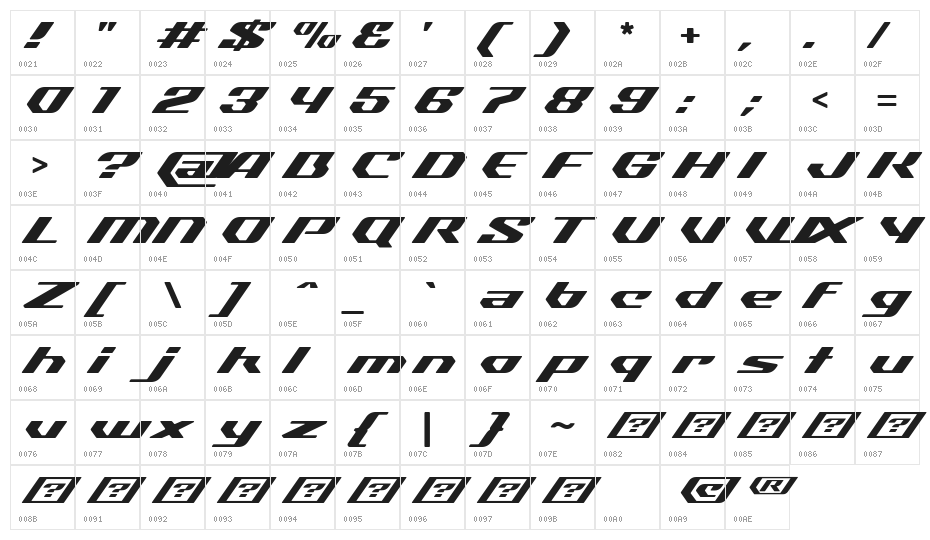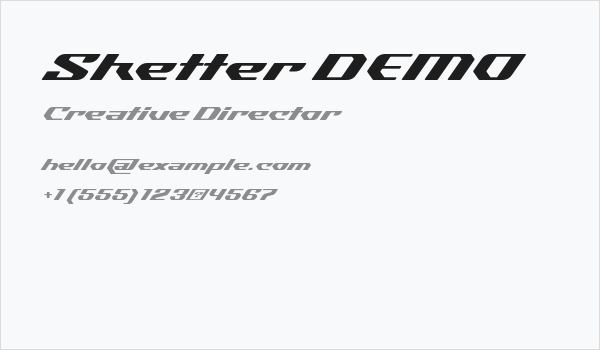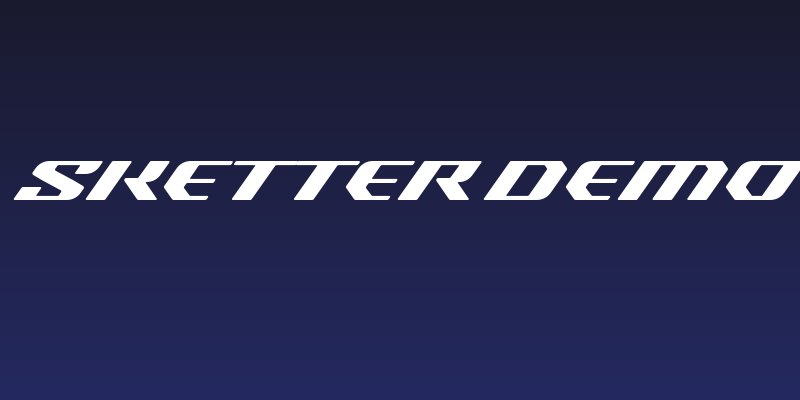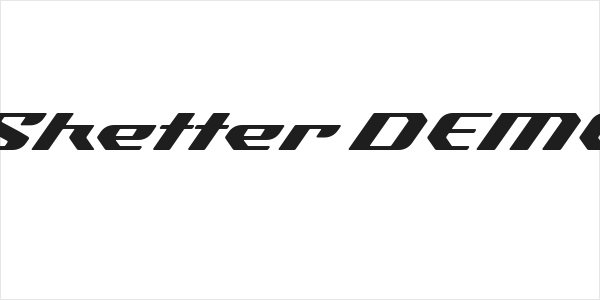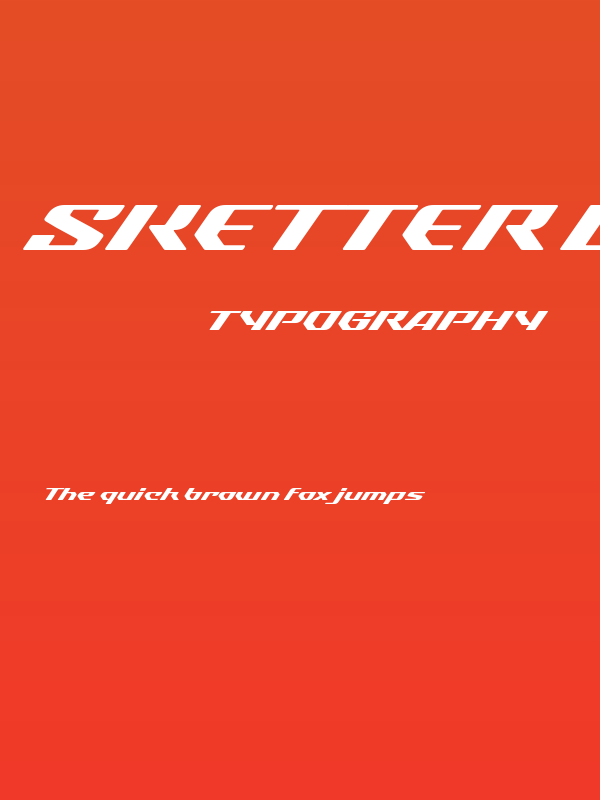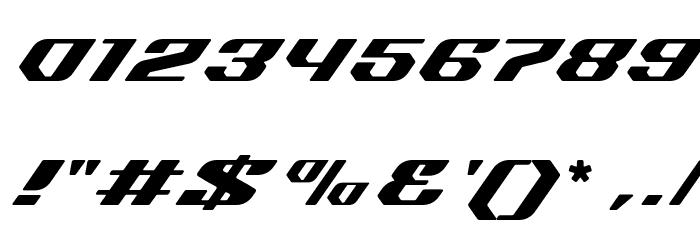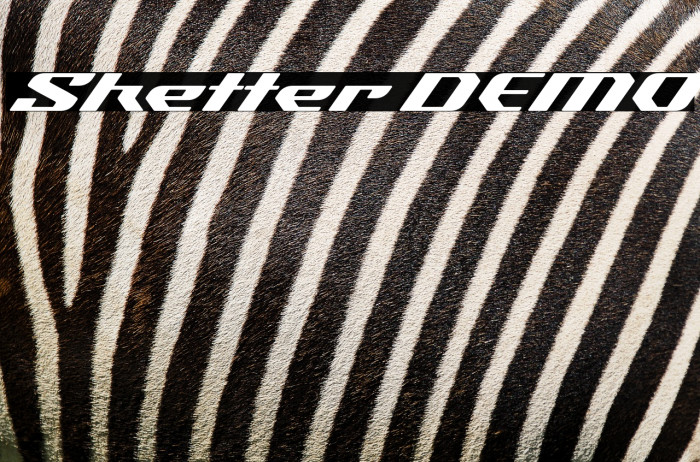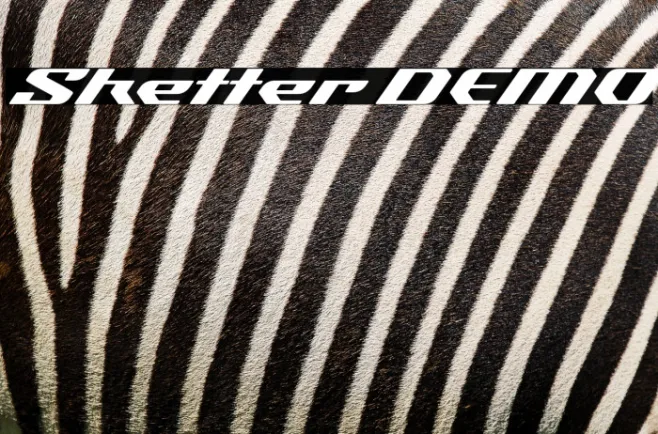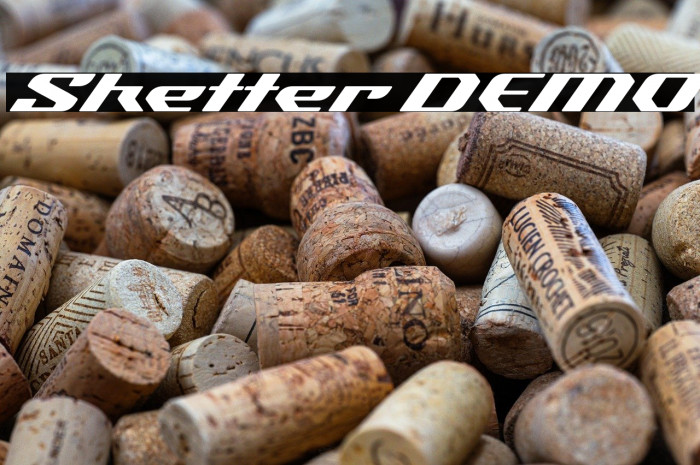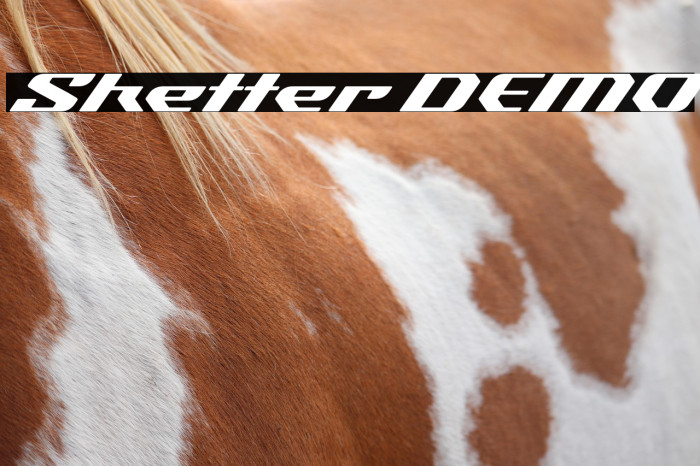
Sketter DEMO Font
Sketter DEMO Description
This font features a bold, angular design with a futuristic and dynamic appearance. The characters are slanted, giving a sense of motion and speed, which is enhanced by the sharp edges and geometric shapes. The uppercase and lowercase letters maintain a consistent style, with the lowercase being slightly more compact. Numbers and special characters follow the same angular and slanted design, ensuring uniformity across all glyphs. The overall look is modern and edgy, making it suitable for projects that require a strong visual impact.
| Proposed Projects | Ideal for sports branding, automotive designs, video game titles, and tech-related projects. |